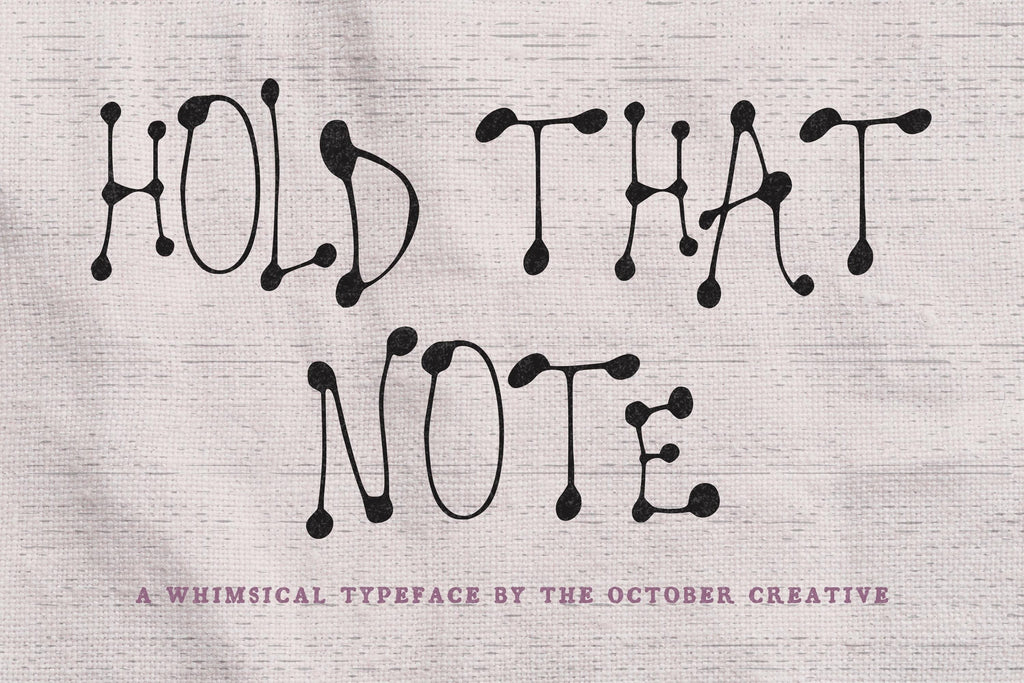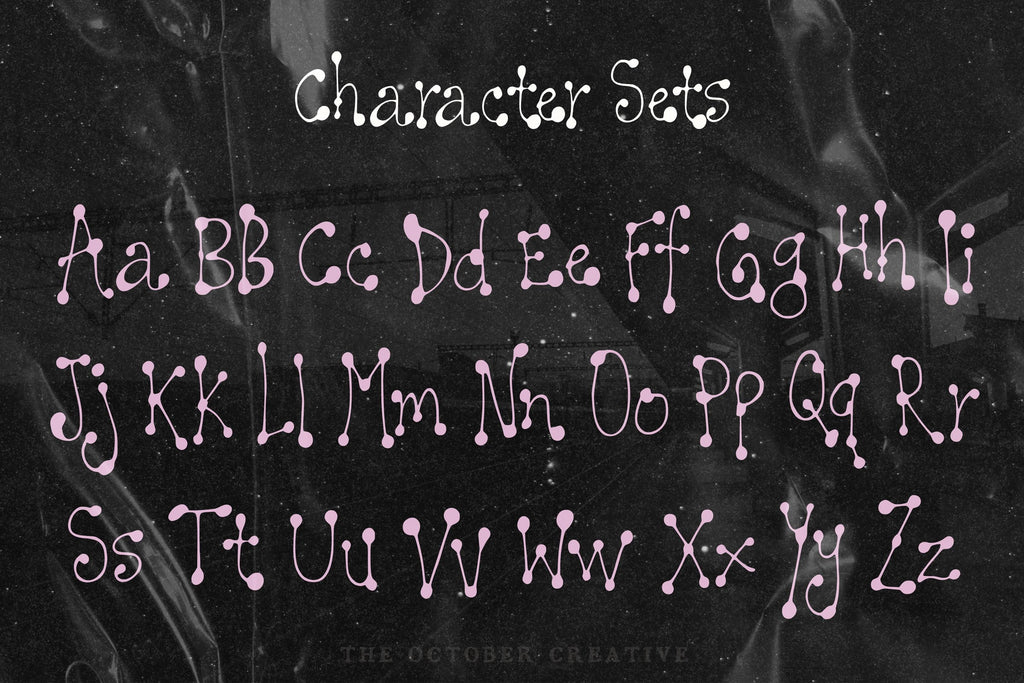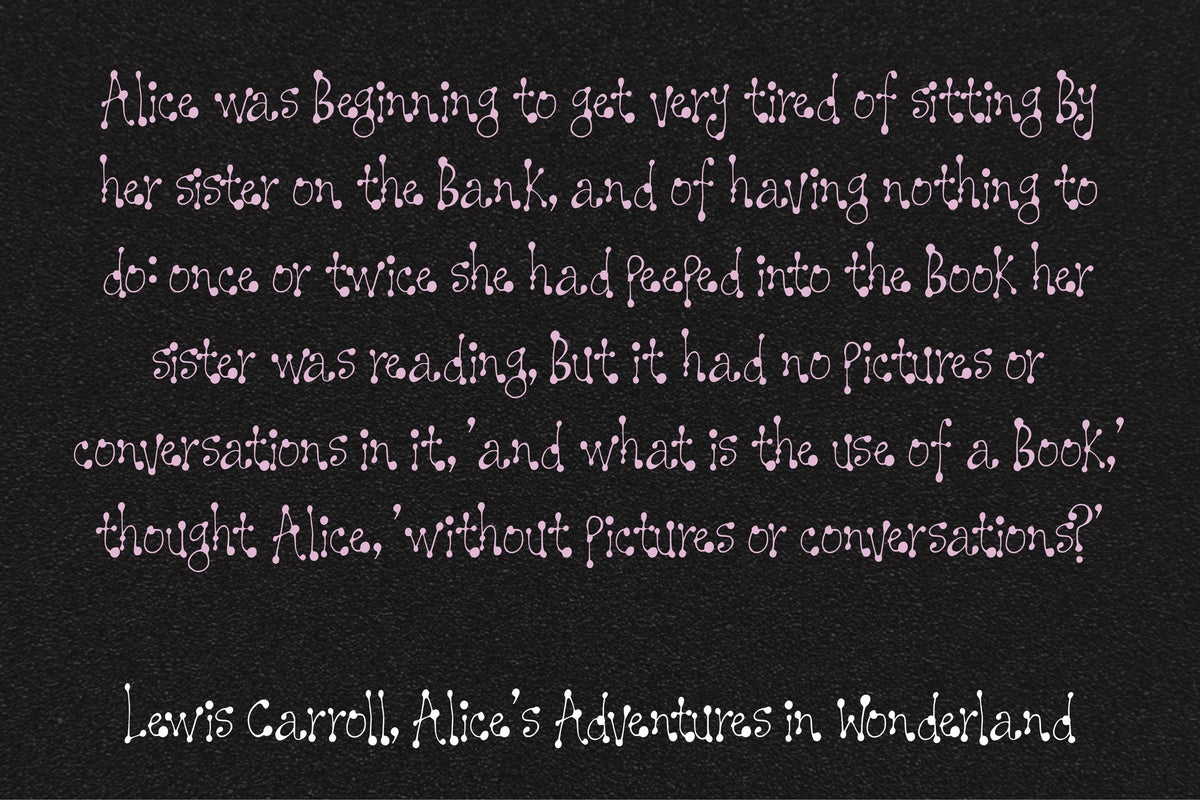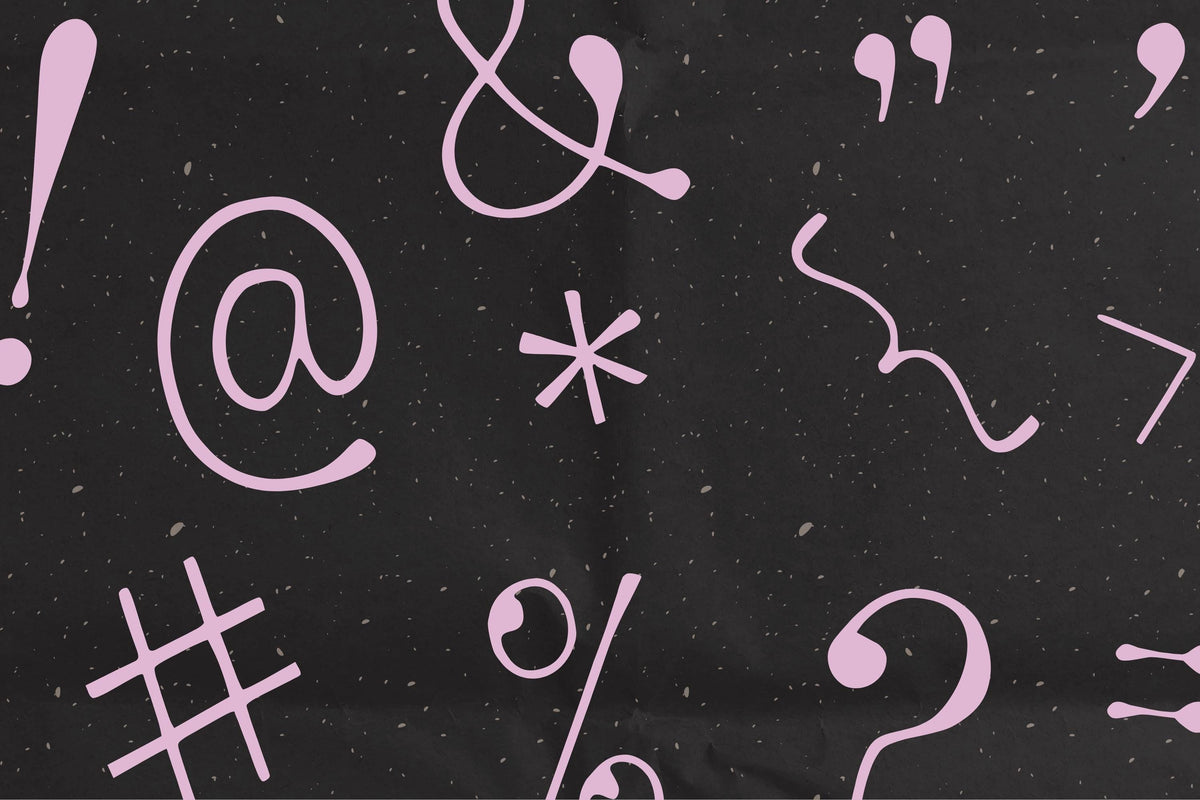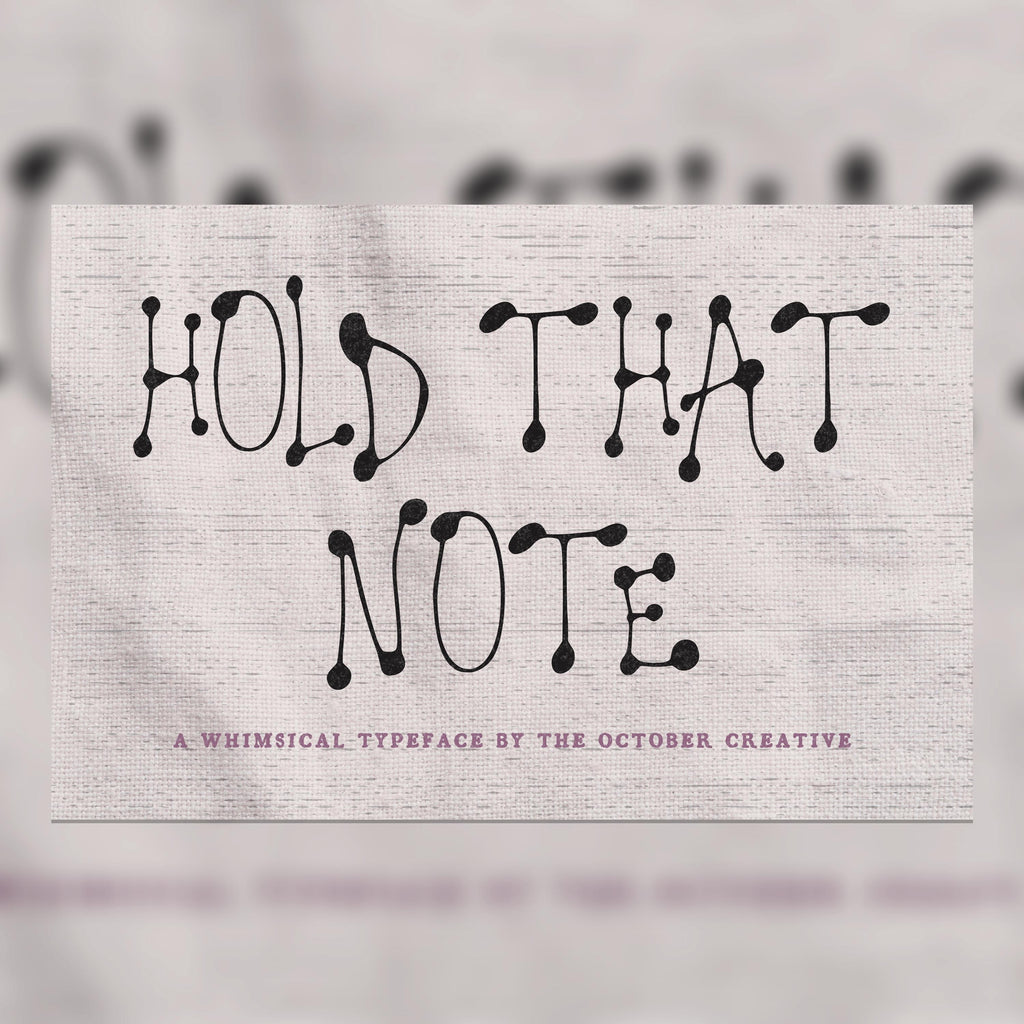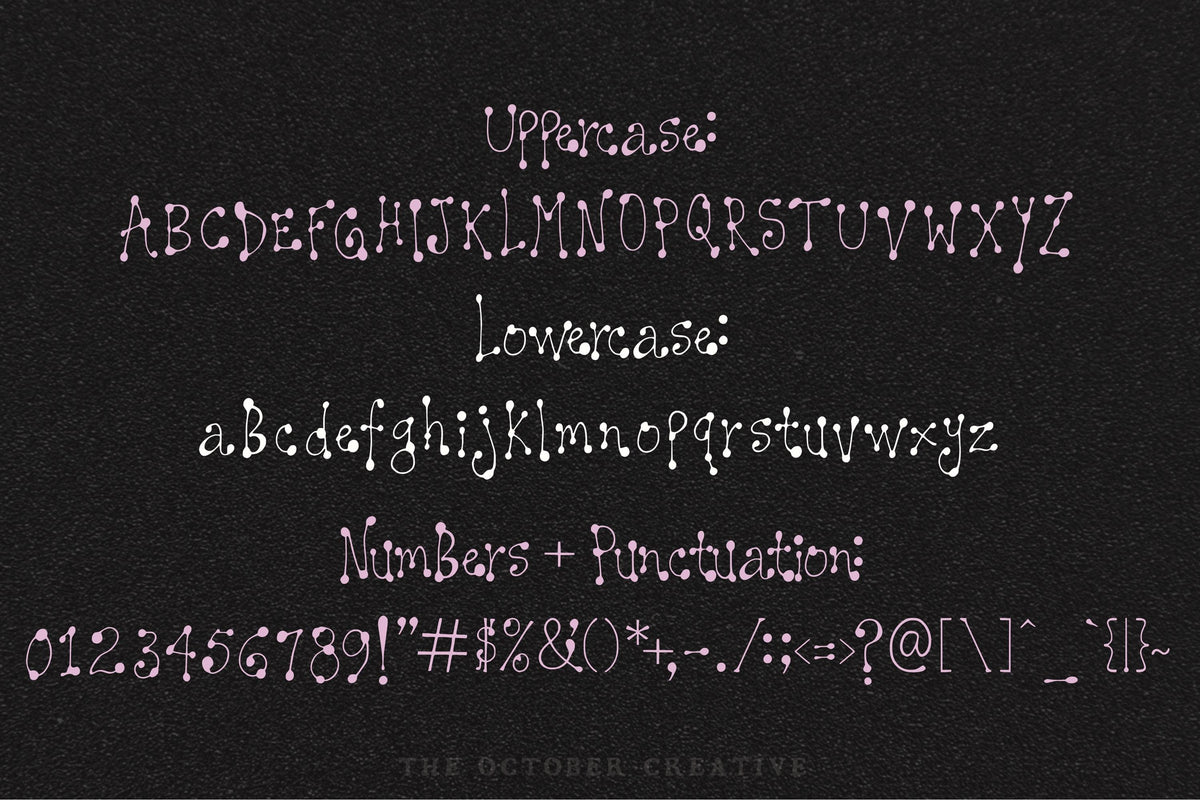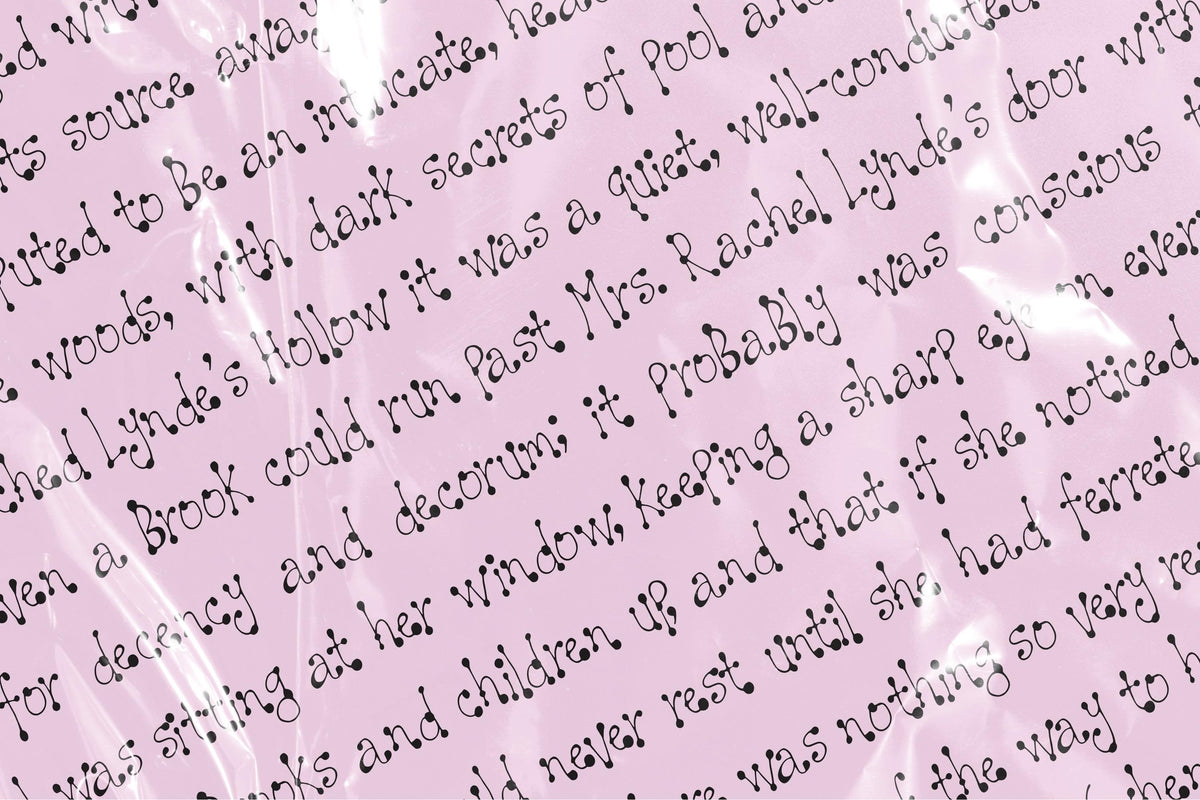
Hold That Note Font
Hold That Note has delicate letters finished with round little dots, like someone put a pearl on every curl. It's a lovely choice for wedding menus, place cards, and dinner invitations where a few carefully chosen words deserve a pretty setting.